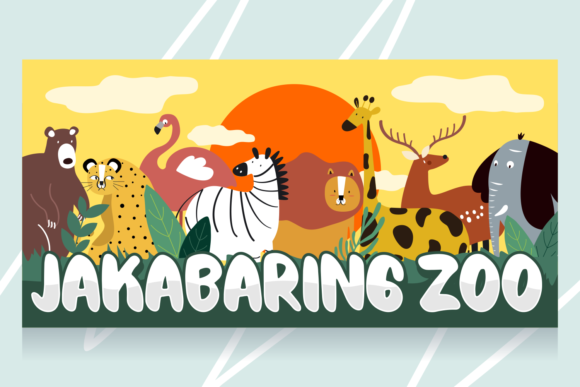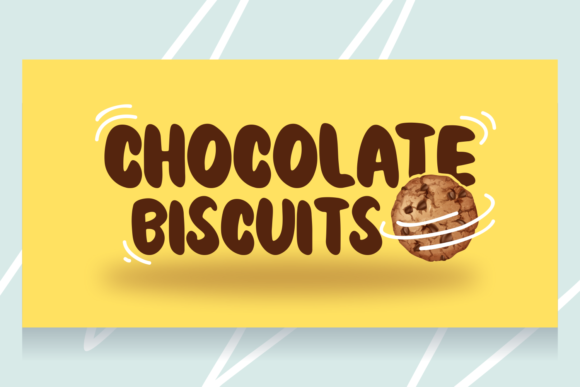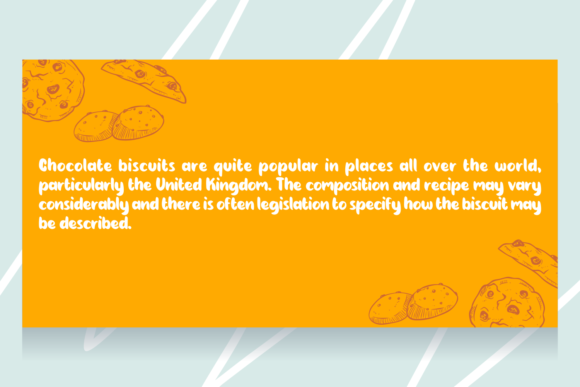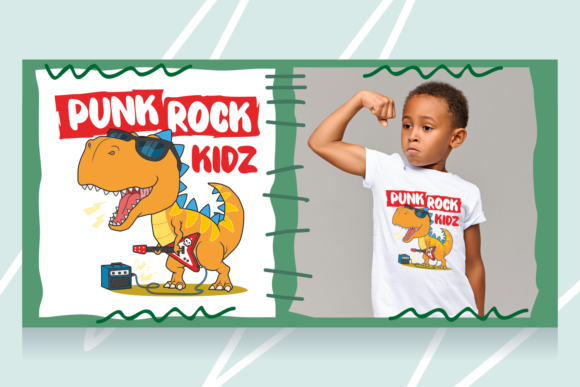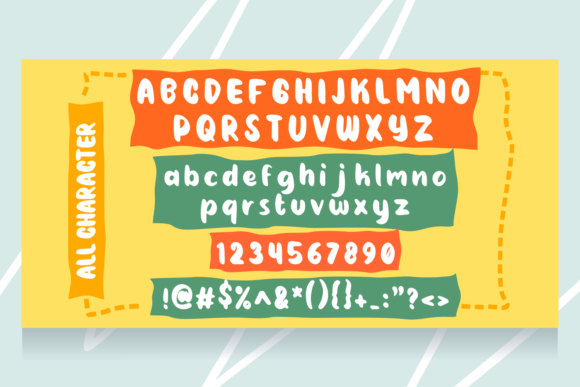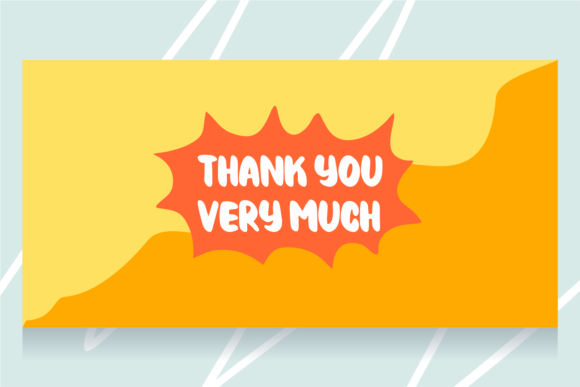
Baby Bison Font: Add a Touch of Playfulness to Your Designs
Are you looking for a font that can add a dash of fun and sweetness to your designs? Look no further than the Baby Bison Font! This charming display font is perfect for children’s activities, school projects, and any design that requires a playful touch. In this article, we’ll explore the features and benefits of the Baby Bison Font and how it can elevate your designs.
What is Baby Bison Font?
Baby Bison Font is a fun and sweet display font that embodies playfulness and authenticity. Its chunky lettered design makes it perfect for adding a touch of whimsy to your designs. The font’s playful and carefree vibe makes it an excellent choice for designs aimed at children, such as activity sheets, posters, and educational materials.
Key Features of Baby Bison Font
- Playful and Authentic Design: The Baby Bison Font boasts a unique and charming design that exudes playfulness and authenticity.
- Chunky Lettering: The font’s chunky lettering makes it easy to read and adds a touch of whimsy to your designs.
- Perfect for Children’s Designs: The font’s playful and carefree vibe makes it an excellent choice for designs aimed at children.
Benefits of Using Baby Bison Font
So, why should you choose the Baby Bison Font for your designs? Here are just a few benefits of using this charming font:
- Adds a Touch of Whimsy: The Baby Bison Font adds a touch of whimsy and playfulness to your designs, making them more engaging and fun.
- Perfect for Kids’ Designs: The font’s playful and carefree vibe makes it an excellent choice for designs aimed at children, such as activity sheets, posters, and educational materials.
- Easy to Read: The font’s chunky lettering makes it easy to read, even for young children.
- Versatile: The Baby Bison Font can be used for a variety of design projects, from posters and flyers to digital graphics and crafts.
In conclusion, the Baby Bison Font is a fun and sweet display font that is perfect for adding a touch of playfulness and authenticity to your designs. Its chunky lettered design makes it easy to read and adds a touch of whimsy to your designs. Whether you’re a designer, crafter, or educator, the Baby Bison Font is an excellent choice for any design project that requires a playful touch. So why not give it a try and see how it can elevate your designs?